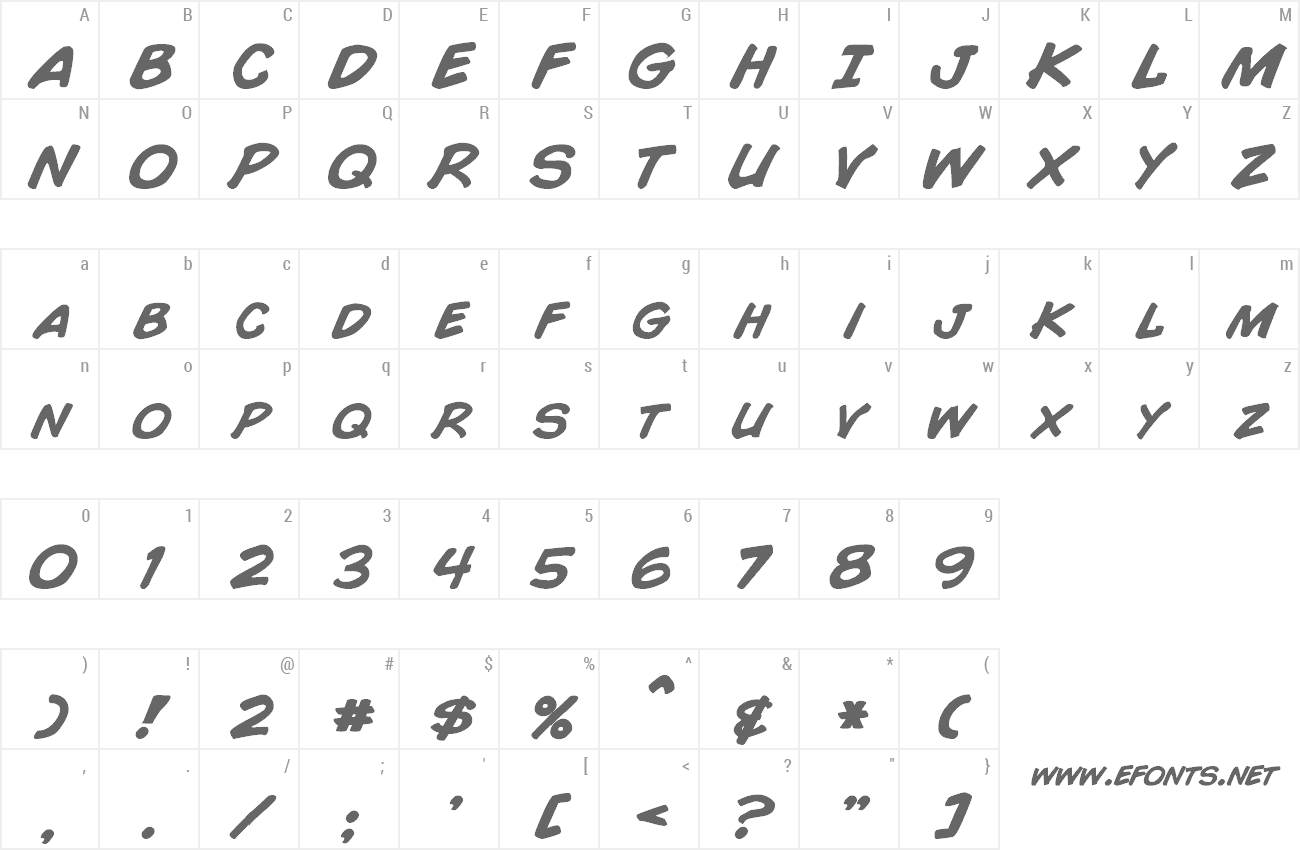
Comic Book is one of my first 'scan and build' fonts but I unfortunately don't remember which comic book page I used to start work on it. It is designed to resemble the lettering of a typical comic classic book. Includes full alphabet, extended punctuation, Euro. Includes bold, italic and bold-italic versions. Version 3.30 - 4 February 2016 * Vastly improved spacing and kerning * Updated font standard * Minor updates to reflect proper comic style Version 3.40 - 20 March 2016 * Polish Characters Added * Embedding issue corrected |